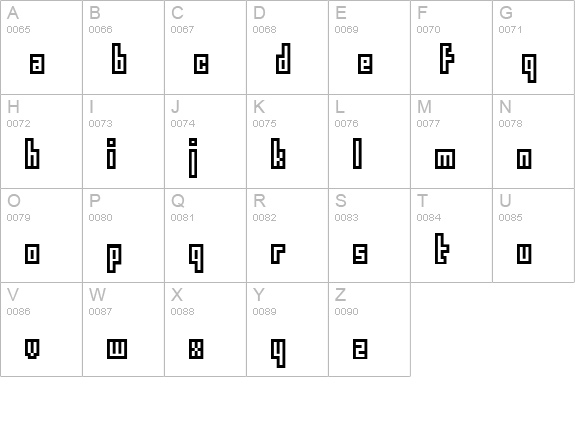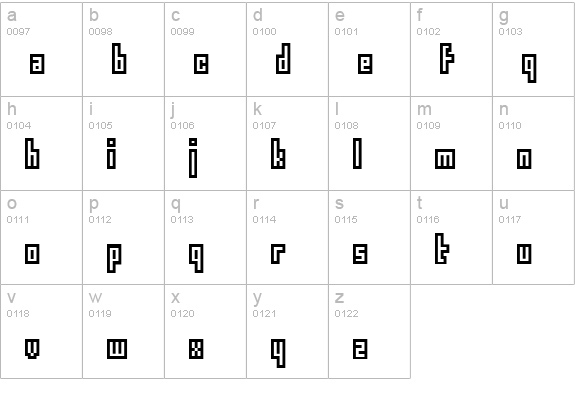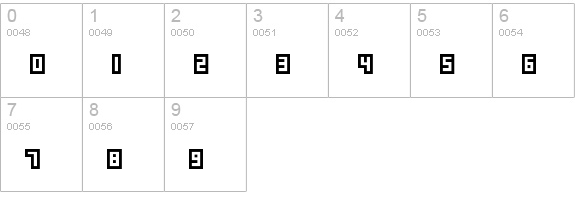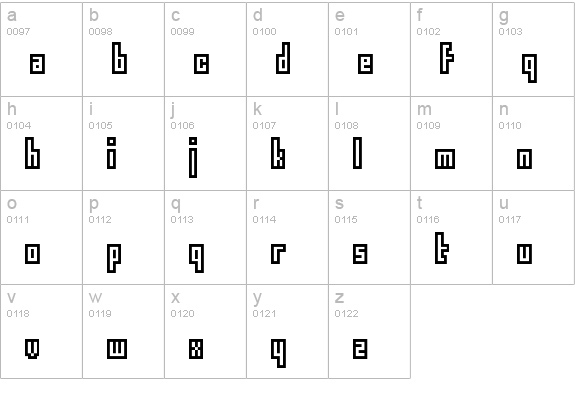
epimodemic Font Details
Epimodemic font is a stylish and modern typeface that is sure to make your designs stand out. With its sleek lines and contemporary feel, this font is perfect for a variety of projects, from branding to social media graphics. The bold and eye-catching characters of Epimodemic font will captivate your audience and leave a lasting impression. The best part? Epimodemic font is completely free to download at FontsMarket.com. This means you can enhance your designs with this stunning font without having to spend a dime. Simply head over to FontsMarket.com and get your hands on this versatile typeface today. Whether you're working on a professional project or a personal endeavor, Epimodemic font is the perfect choice to add a touch of sophistication and flair to your designs. Download it now and elevate your creations to the next level with this exceptional font.